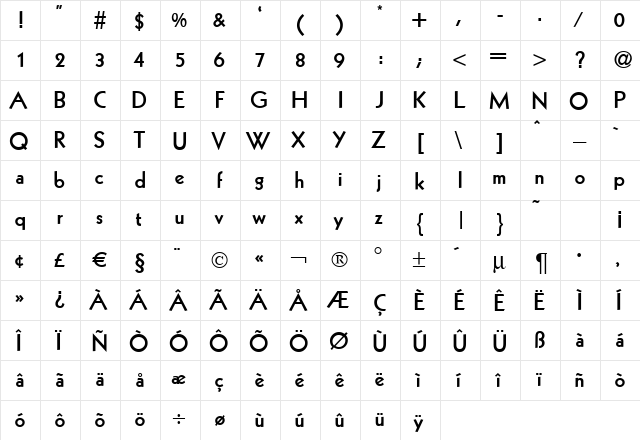
K791-Geometrical Bold
Design Context for K791-Geometrical Typeface
K791-Geometrical takes a measured approach to typography — its balanced proportions and neutral character make it a reliable workhorse for both digital and print work. Its bold stroke weight gives it real presence on the page.